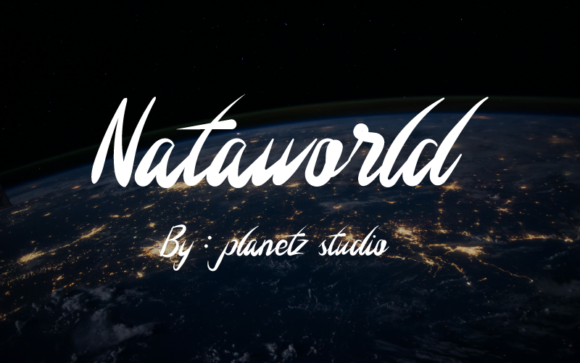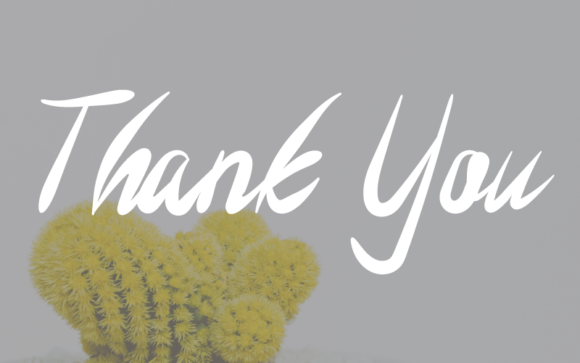
Nataworld Font
About Nataworld Font
Nataworld is a stunning handwritten font, masterfully designed to become a true favorite. Fall in love with its incredibly versatile style and use it to create gorgeous wedding invitations, beautiful stationary art, eye-catching social media posts, and much more!